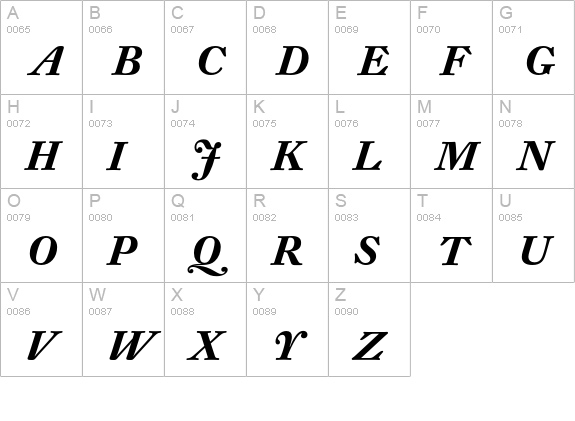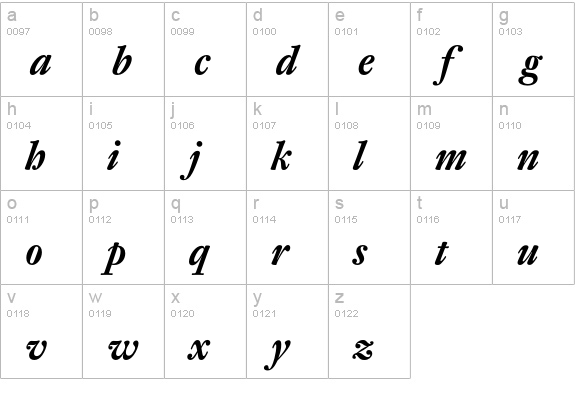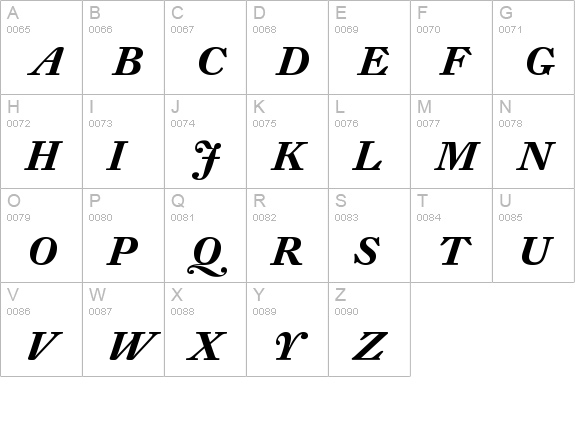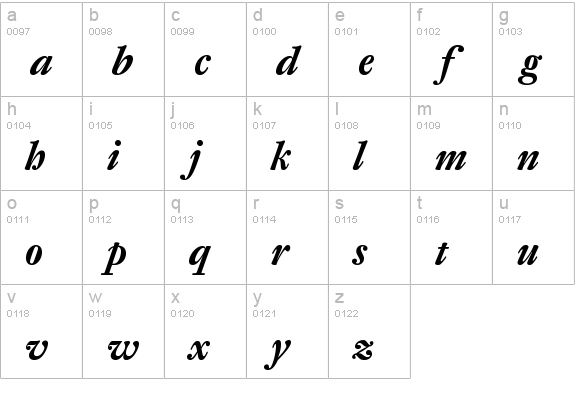
DTL Fleischmann SD Bold Italic Font Details
DTL Fleischmann SD Bold Italic is a strong, high-contrast, italic variant in the DTL typeface family \xE2\x80\x94 well suited to headlines, attention-grabbing titles, and strong calls-to-action.
The DTL Fleischmann SD Bold Italic font is a bold and dynamic typeface that exudes a sense of strength and sophistication. Its sleek and modern design makes it perfect for headlines, titles, and other prominent text in both print and digital media. This font features a striking italic style that adds a touch of elegance and flair to any design project. Whether you're creating a poster, logo, or website, the DTL Fleischmann SD Bold Italic font will make your text stand out and grab attention. Best of all, this font is available for free download at FontsMarket.com. Simply visit the website and add this stylish typeface to your collection without spending a dime. Don't miss out on the opportunity to enhance your designs with the DTL Fleischmann SD Bold Italic font today!